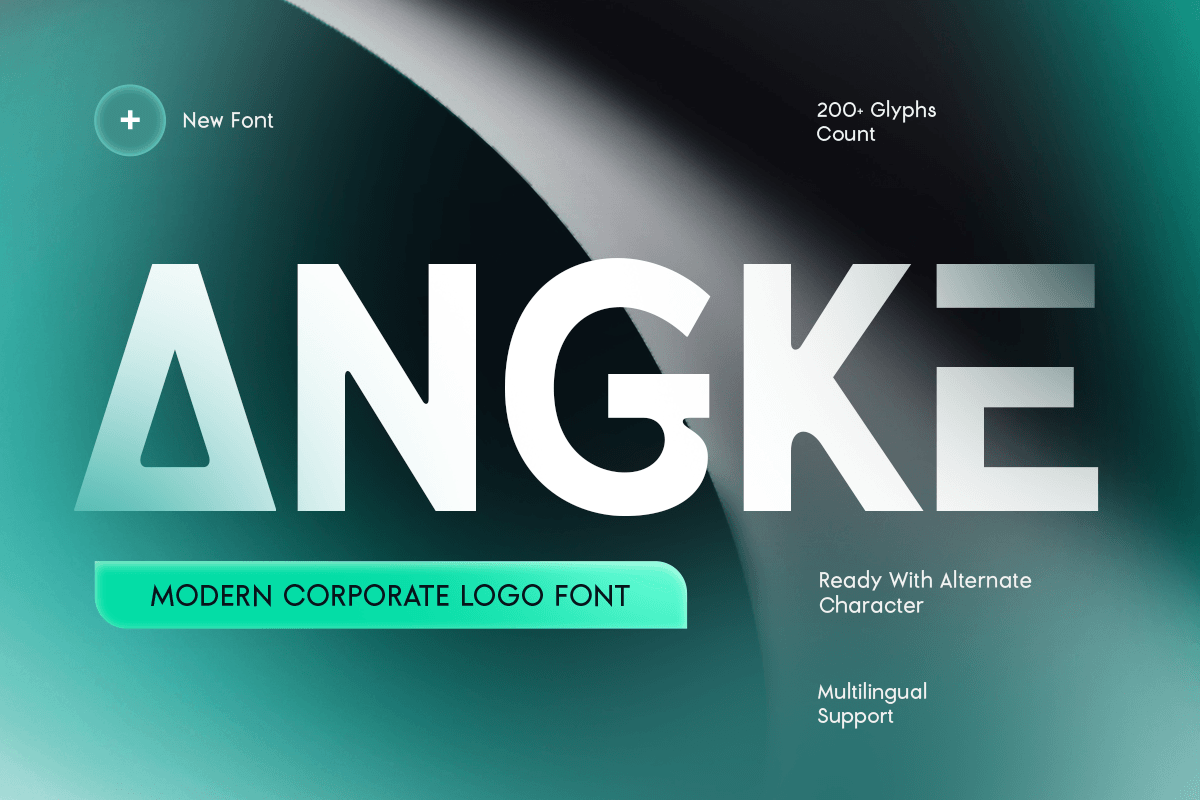
Angke
-Modern Corporate Logo FontAngke - Modern Corporate Logo Font
ANGKE is a modern corporate logo font designed to deliver professionalism, clarity, and strong brand presence. Built with clean geometric forms and balanced proportions, this typeface is ideal for companies, startups, agencies, and organizations seeking a polished and trustworthy visual identity.
Its refined structure allows ANGKE to work seamlessly across logos, presentations, websites, business documents, and marketing materials. The modern aesthetic helps communicate confidence and innovation while maintaining excellent readability across all design applications.
Whether you're creating a corporate identity system, launching a new company, or refreshing an existing brand, ANGKE provides the versatility and sophistication needed for professional communication in both digital and print environments.
ANGKE – Modern Corporate Logo Font Features
Clean and professional sans serif design for corporate branding
Perfect for logos, business identities, websites, and presentations
Modern geometric construction with excellent readability
Ideal for corporate, startup, technology, and agency projects
OpenType features for advanced typographic flexibility
Build a strong and professional identity with ANGKE – the ultimate corporate logo font for modern business branding. 💼✨